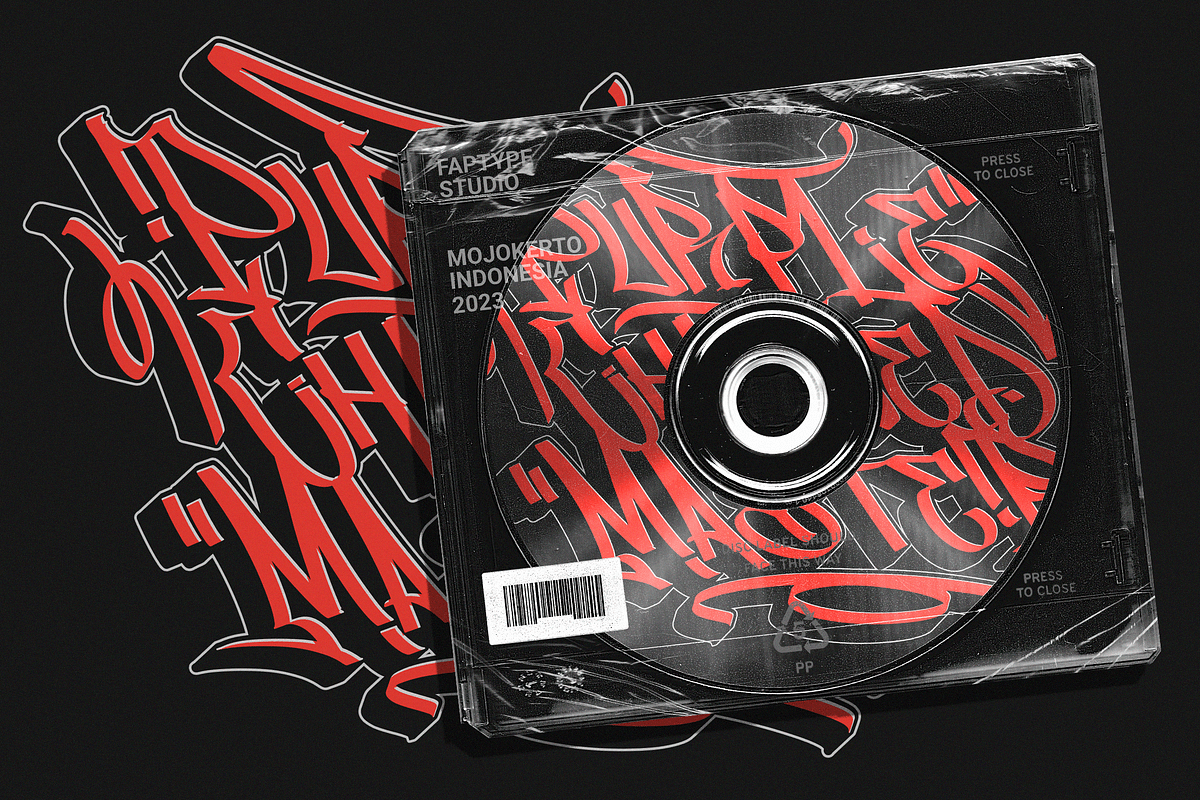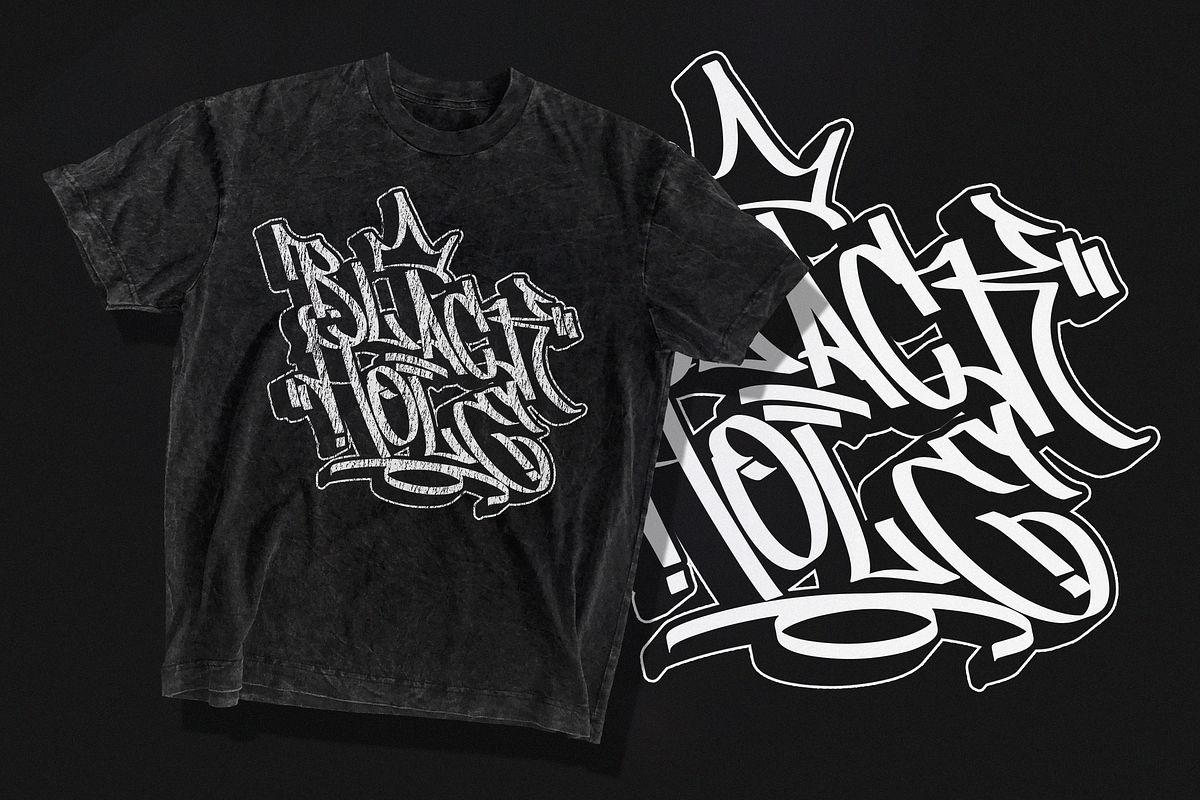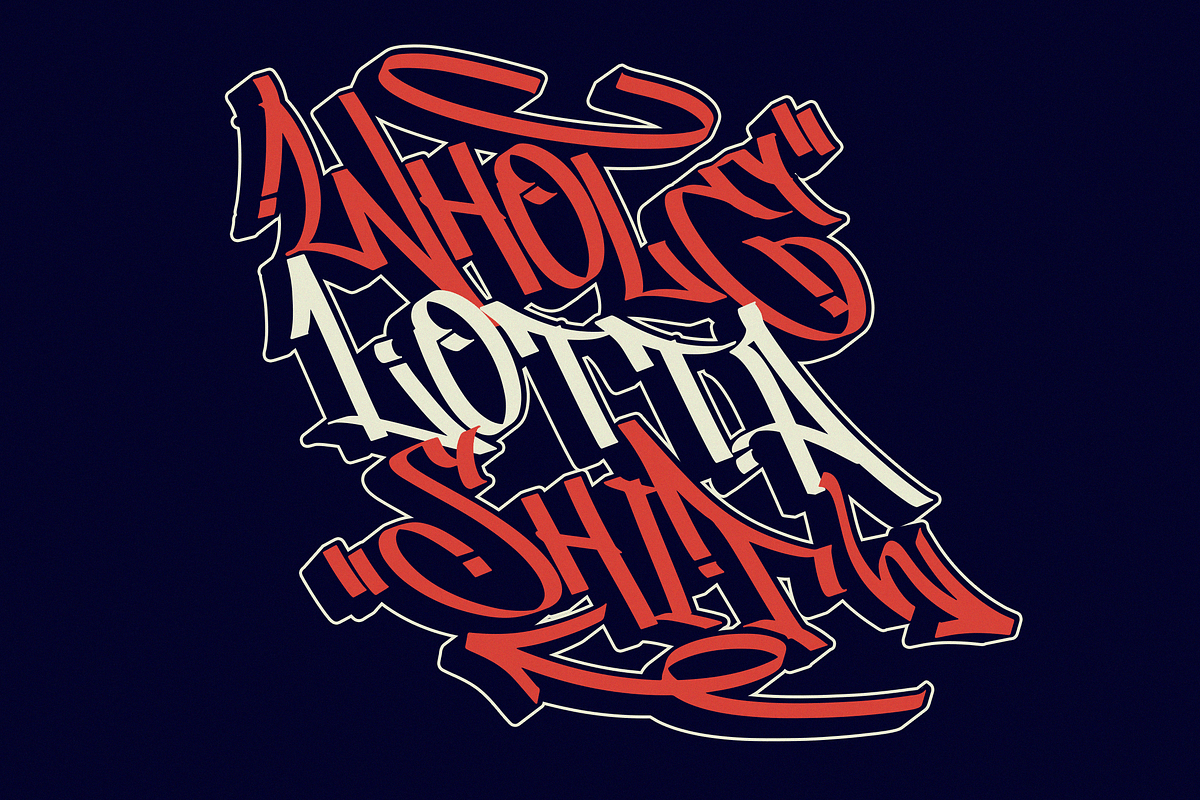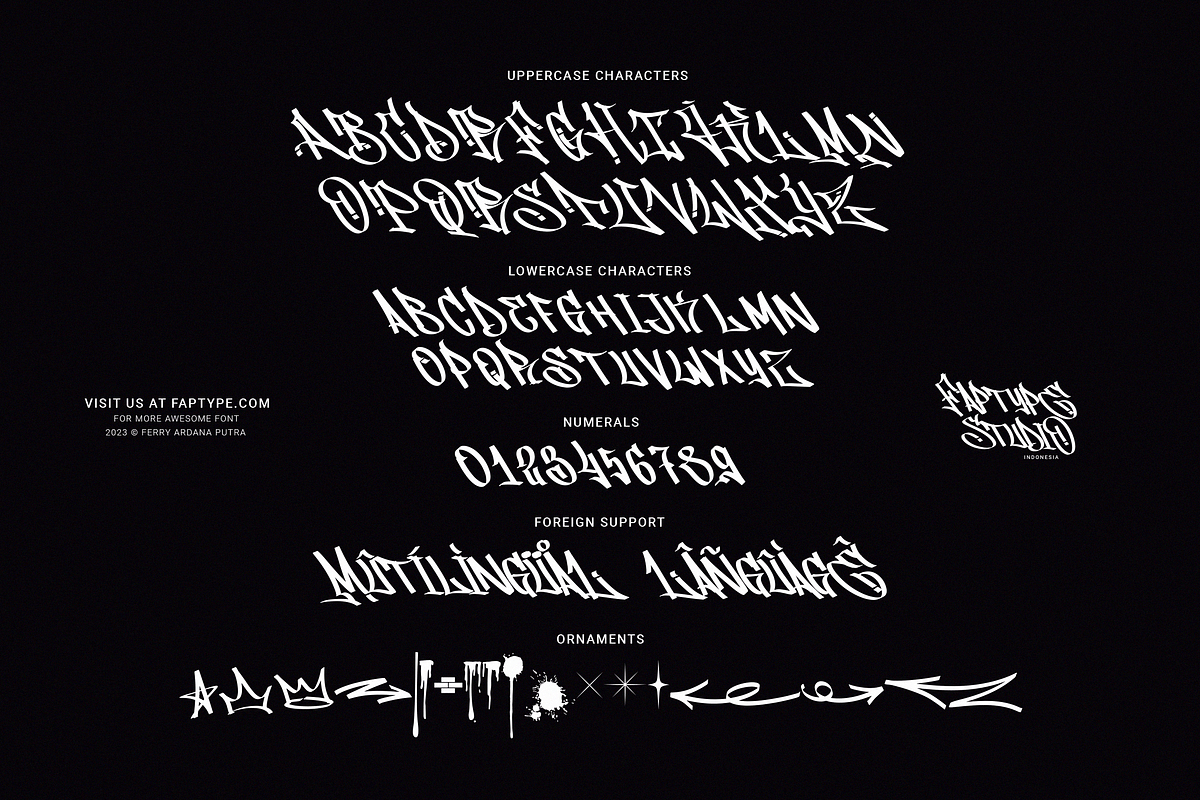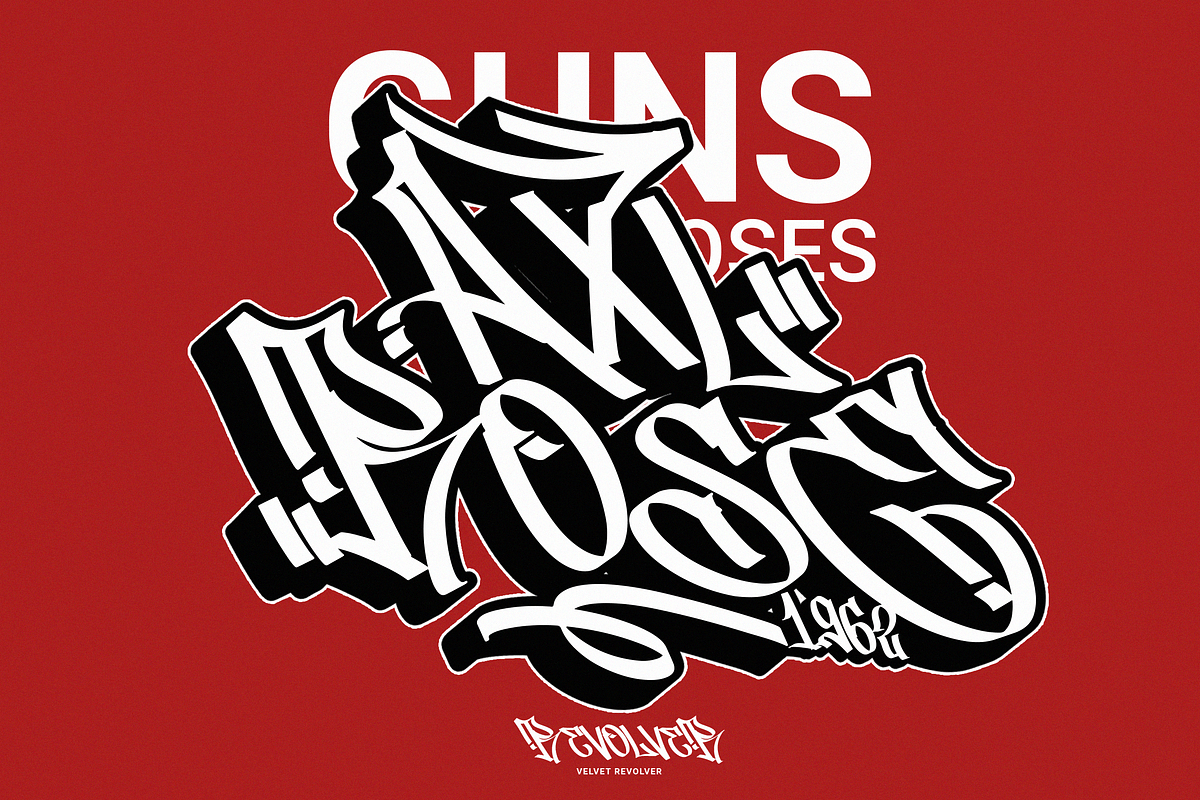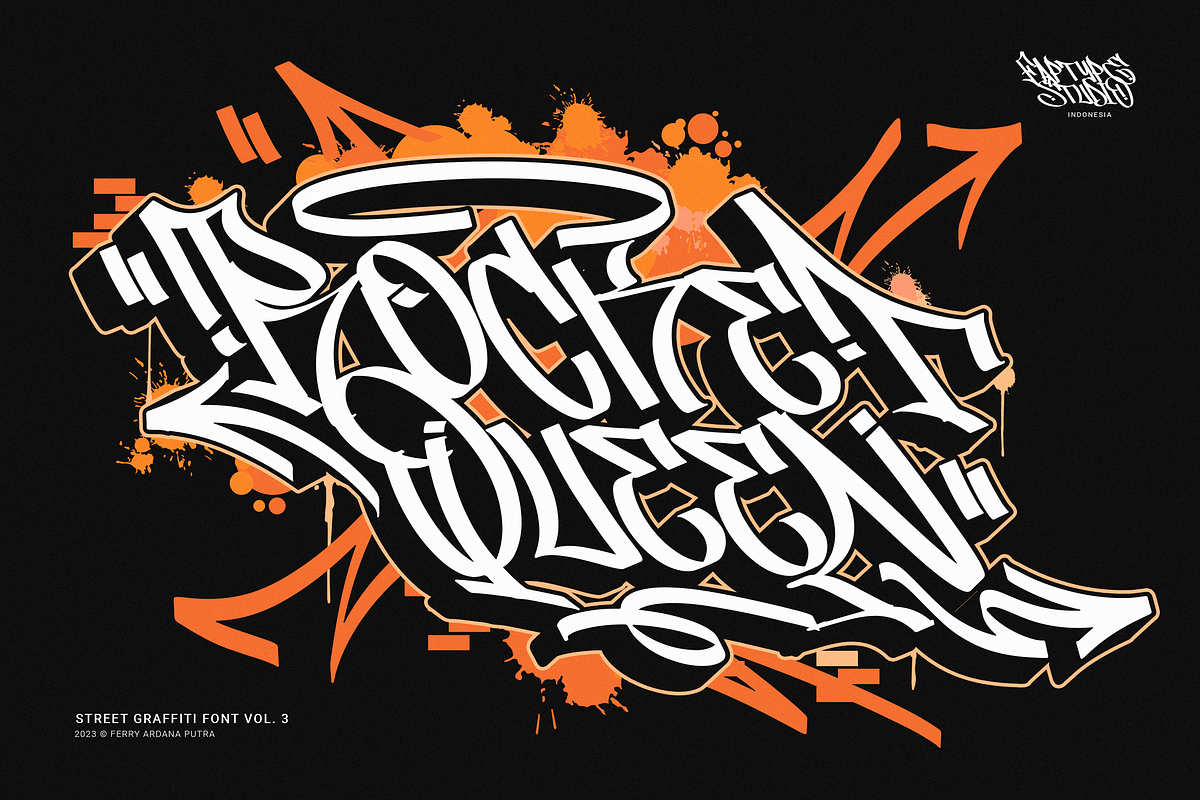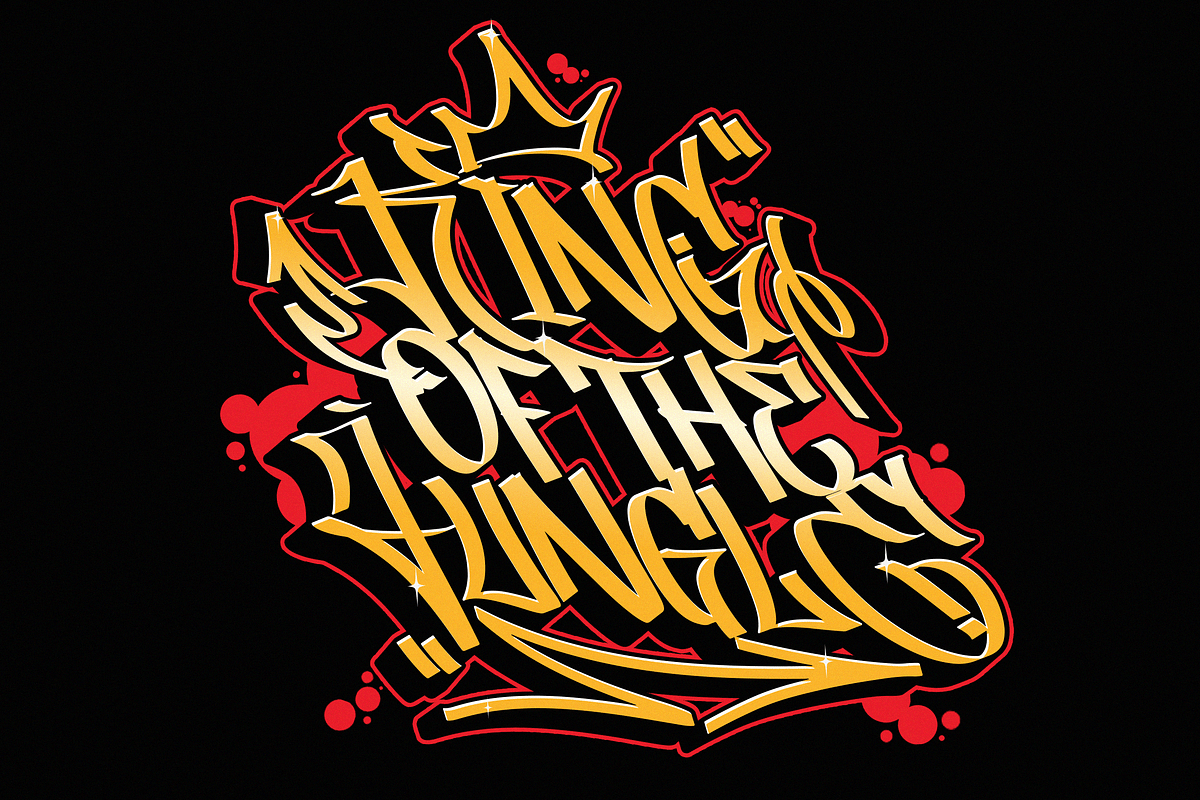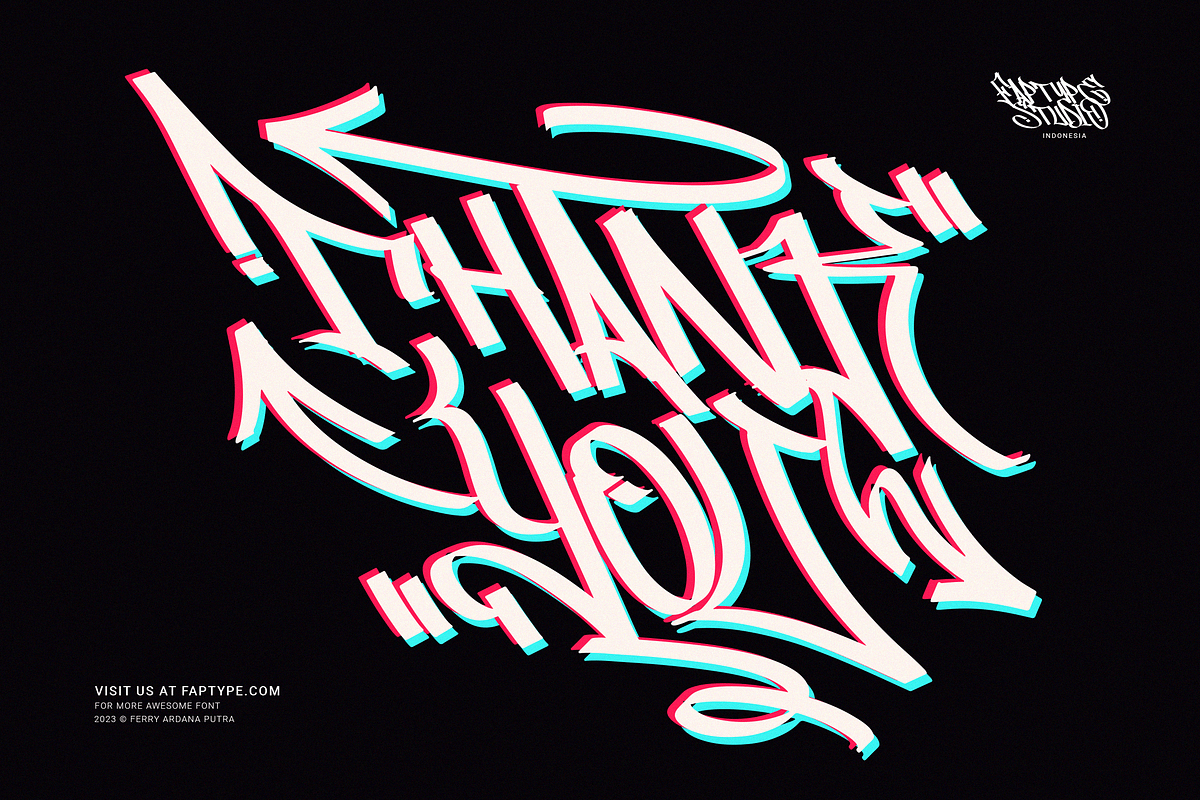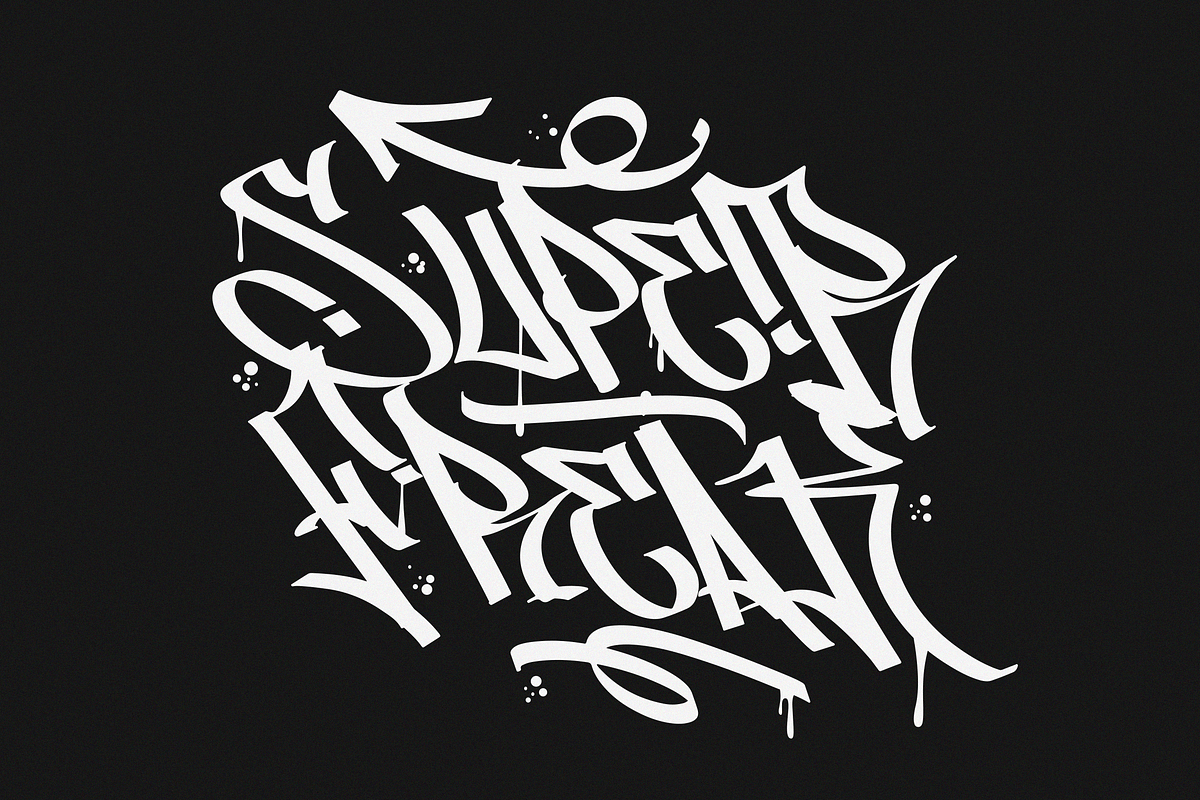
Rocket Queen | Street Graffiti Font
Unleash your inner street artist with Rocket Queen! The definitive font for urban self-expression. Inspired by the bold strokes of tagging graffiti markers found on city walls, this font encapsulates the raw energy of the streets. Its uppercase and lowercase characters ensure versatility, while support for foreign languages guarantees global appeal. Graffiti artists worldwide adore its iconic rounded tip marker style for its unique and entertaining aesthetics.
Rocket Queen's "Urban Tags" font is more than just a typeface; it's an urban art form. Designed with a nod to the vibrant world of graffiti scenes, this font embodies the spirit of tagging graffiti markers, creating a gritty, authentic experience. With full support for foreign languages and both uppercase and lowercase characters, Rocket Queen empowers your creativity. Its iconic rounded tip marker style, favored by graffiti artists globally, offers a unique and entertaining touch to your designs. Plus, it's enriched with street graffiti ornaments for that added urban flair.
Rocket Queen is more than a font; it's the language of rebellion and urban creativity. Drawing inspiration from the bustling streets and tagging graffiti markers, this font captures the raw spirit of street art. Its iconic rounded tip marker style, beloved by graffiti artists worldwide, sets your designs apart with a unique and captivating aesthetic. Supporting foreign languages and featuring a complete set of uppercase and lowercase characters, Rocket Queen is your canvas for bold, edgy statements.
Step into the world of street art with Rocket Queen, a font that embodies the raw spirit of urban graffiti. Inspired by the legendary rounded tip marker style, this font captures the essence of tagging in the streets. Its captivating, one-of-a-kind design is favored by graffiti artists across the globe. With support for foreign languages and a full set of uppercase and lowercase characters, Rocket Queen is the ultimate choice for artists who want their work to resonate with the vibrant, rebellious energy of the graffiti scene. And, don't forget to explore the collection of street graffiti ornaments to take your designs to the next level!
"Rocket Queen" font is perfect for a wide range of creative and artistic applications. Here are some ideal uses for this unique and edgy font:
Graffiti Artwork: Use "Rocket Queen" to create authentic graffiti-style artwork on canvas, walls, or digital platforms. Its street-inspired design will add an urban, edgy vibe to your work.
Streetwear Brand Logos: Design logos and branding materials for streetwear clothing lines or urban fashion brands. The font's bold and expressive style is a great match for this niche.
Event Posters and Flyers: Create eye-catching event posters and flyers for music concerts, art exhibitions, or street festivals. "Rocket Queen" will help your event materials stand out and evoke a gritty, streetwise feel.
Album Covers: Design album covers for music genres like hip-hop, rap, punk, or any style that demands a rebellious and energetic look. The font can give your cover artwork an authentic street vibe.
Tattoo Lettering: Tattoo artists and enthusiasts can use "Rocket Queen" for lettering in tattoos. Its unique graffiti-inspired characters can create distinct and personalized tattoos.
Skateboard Deck Graphics: Use the font to design custom graphics for skateboard decks, reflecting the rebellious and urban culture of skateboarding.
Street Art Installations: If you're creating street art installations, "Rocket Queen" can be used for text elements within the artwork, giving it an authentic urban graffiti feel.
Urban Magazine Titles: "Rocket Queen" can be an ideal choice for magazine titles and headlines in publications that focus on urban culture, street art, or graffiti.
Video Game Titles and Graphics: Design video game titles, logos, or in-game graphics for games with an urban or street culture theme. The font's distinctive style can enhance the game's visual appeal.
YouTube Channel Branding: Content creators with a street art or urban lifestyle focus can use "Rocket Queen" for their channel logos, banners, and thumbnails.
Product Packaging: For products targeting a youthful, urban audience, the font can be used in product packaging design, making the brand and product look fresh and exciting.
Digital and Print Advertisements: Incorporate "Rocket Queen" in advertising campaigns that aim to connect with a young, rebellious, or urban demographic.
The "Rocket Queen" font is versatile and can be adapted to a wide range of applications where a bold, streetwise, and artistic look is desired. It's all about bringing an authentic graffiti vibe to your creative projects.
Rocket Queen features:
A full set of uppercase and lowercase
Numbers and punctuation
Multilingual language support
PUA Encoded Characters
OpenType Features
Layered Style
+345 Total Glyphs
+100 Graffiti Swashes and Ornaments included!